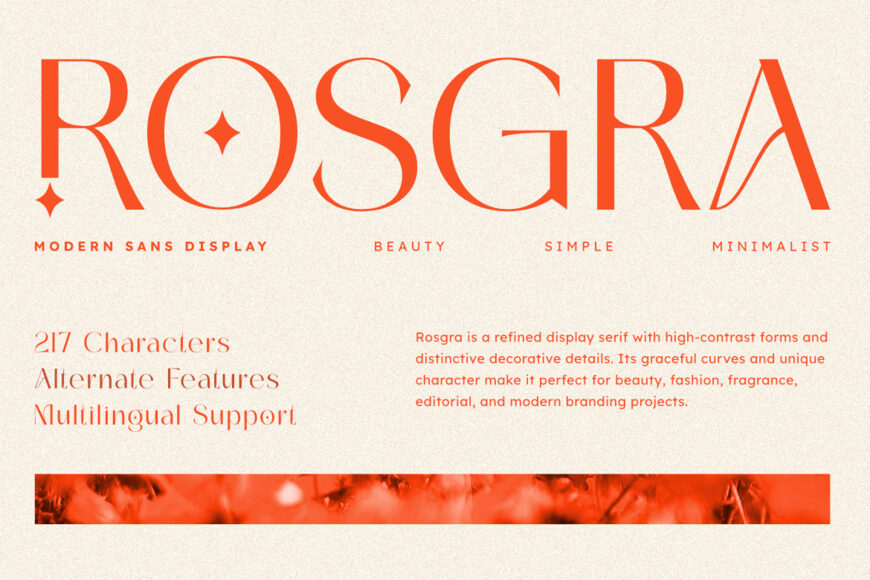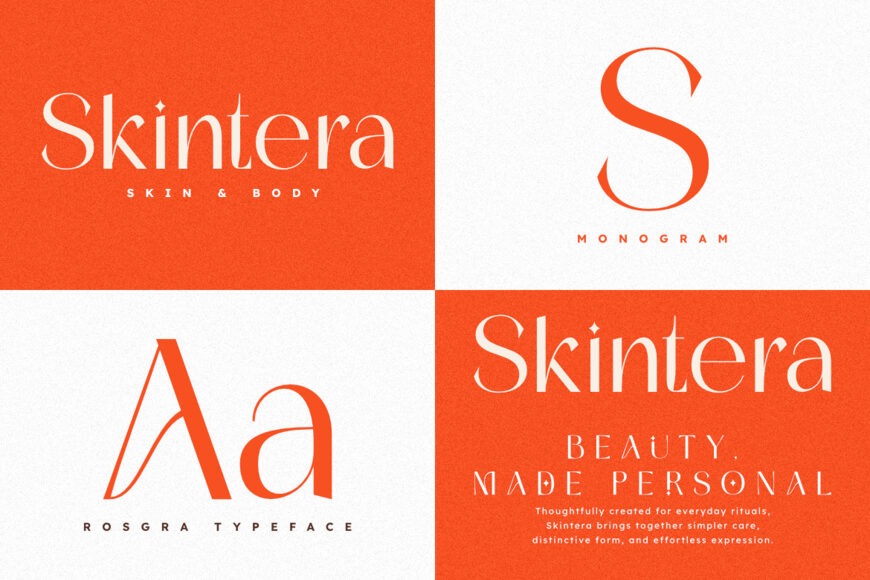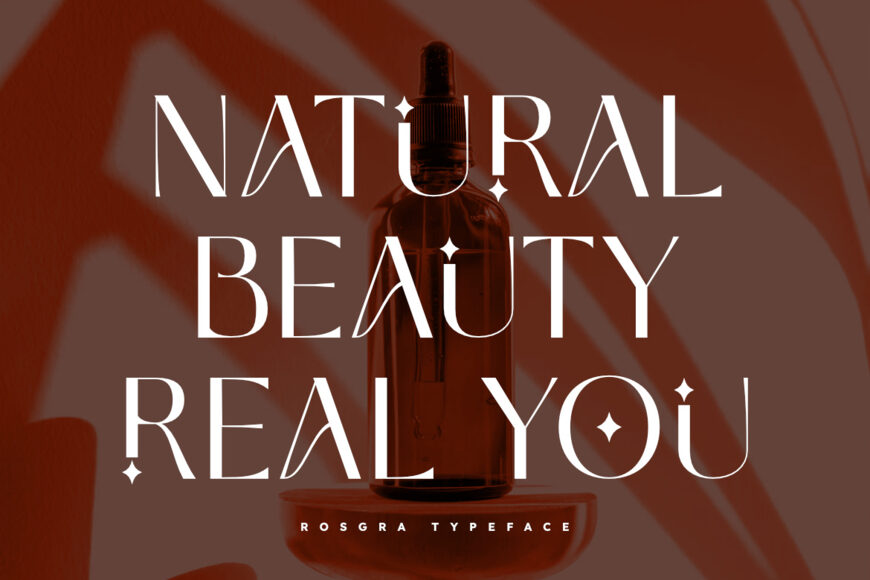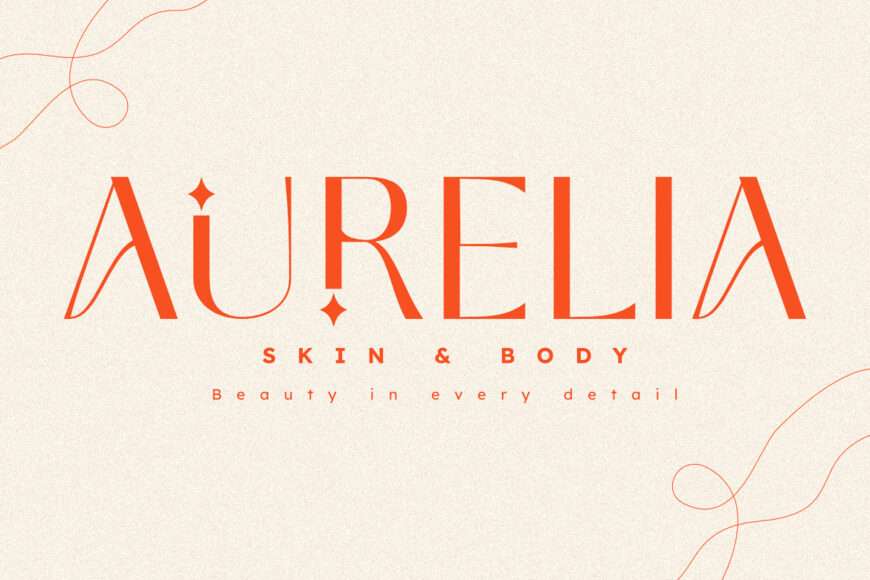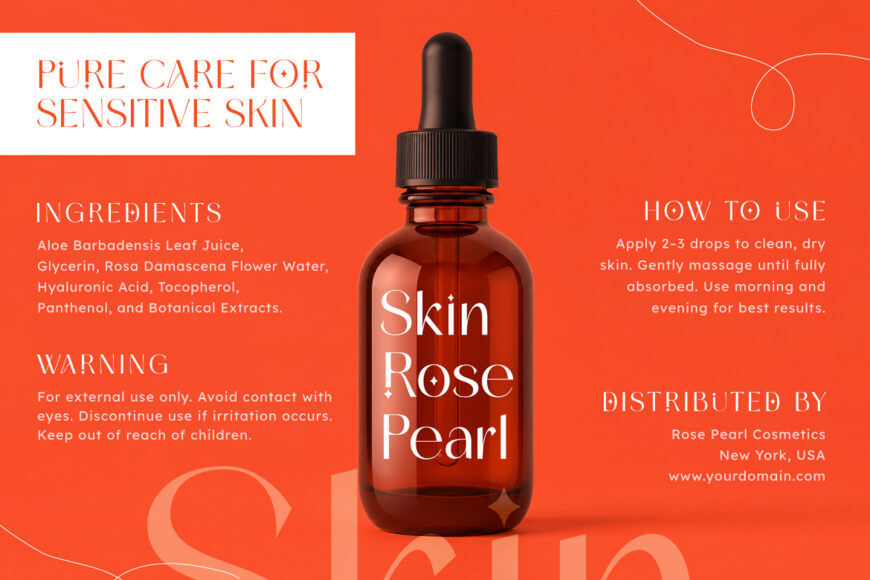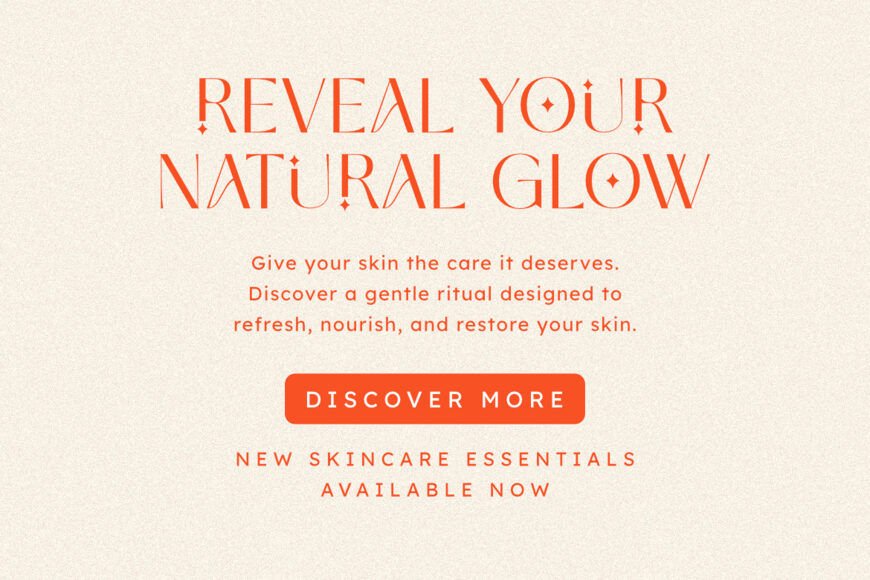
Rosgra is a refined modern sans display font that adds timeless elegance and a premium feel to creative work. Its balanced high-contrast forms, crisp lines, minimalist construction, and subtle decorative accents make it highly adaptable for luxury branding.
With a sleek, expressive structure, Rosgra brings polish to fragrance packaging, editorial designs, and contemporary visuals. It suits boutique identities, cosmetics, fashion and beauty magazines, websites, logos, upscale packaging, and promotional materials that demand a sophisticated, professional finish.